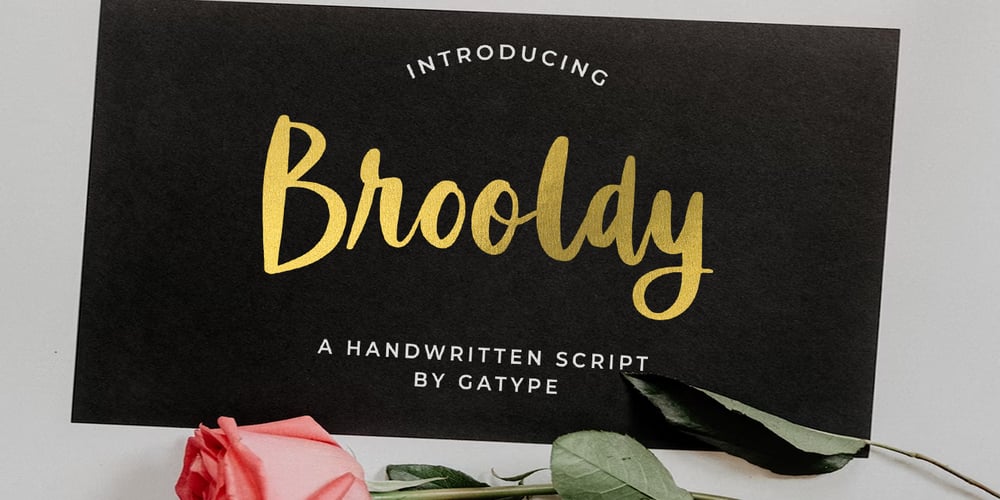
Brooldy
Brooldy font
Brooldy Font Family was designed by khaidir and published by Gatype. Brooldy contains 1 styles and family package options. Brooldy is a beautiful mono-line font, perfect for logo design, branding, apparel design, signage, posters, wedding invitations and more. My goal with this font was to create an easy-to-read script font that would work for a variety of purposes. Brooldy are encoded with PUA Unicode, which allows full access to all additional characters without having to design special software. Mac users can use Font Book and Windows users can use Character Map to view and copy any additional characters to paste into your favorite text editor/application. Brooldy .OTFHope you enjoy this font!